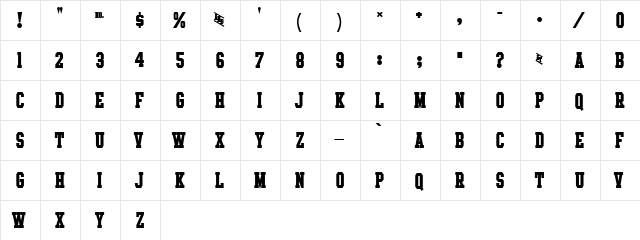
Intramural Bold JL Regular
| Foundry | Jeff's Fonts & Dingbats |
| Designer | Jeff Levine from a Ray Larabie original |
Design Context for Intramural Bold JL Typeface
Intramural Bold JL offers clean, dependable letterforms without strong stylistic allegiance, making it a practical choice for designers who need flexibility. The heavy weight commands attention and anchors typographic hierarchies.